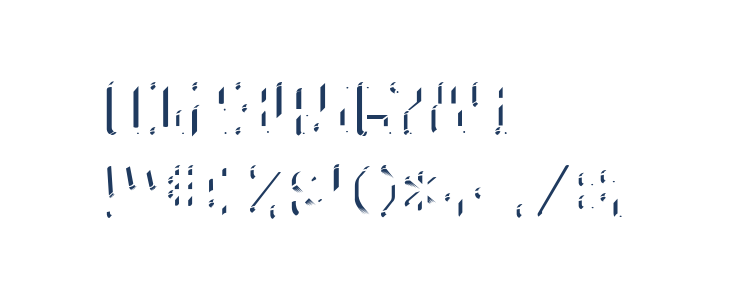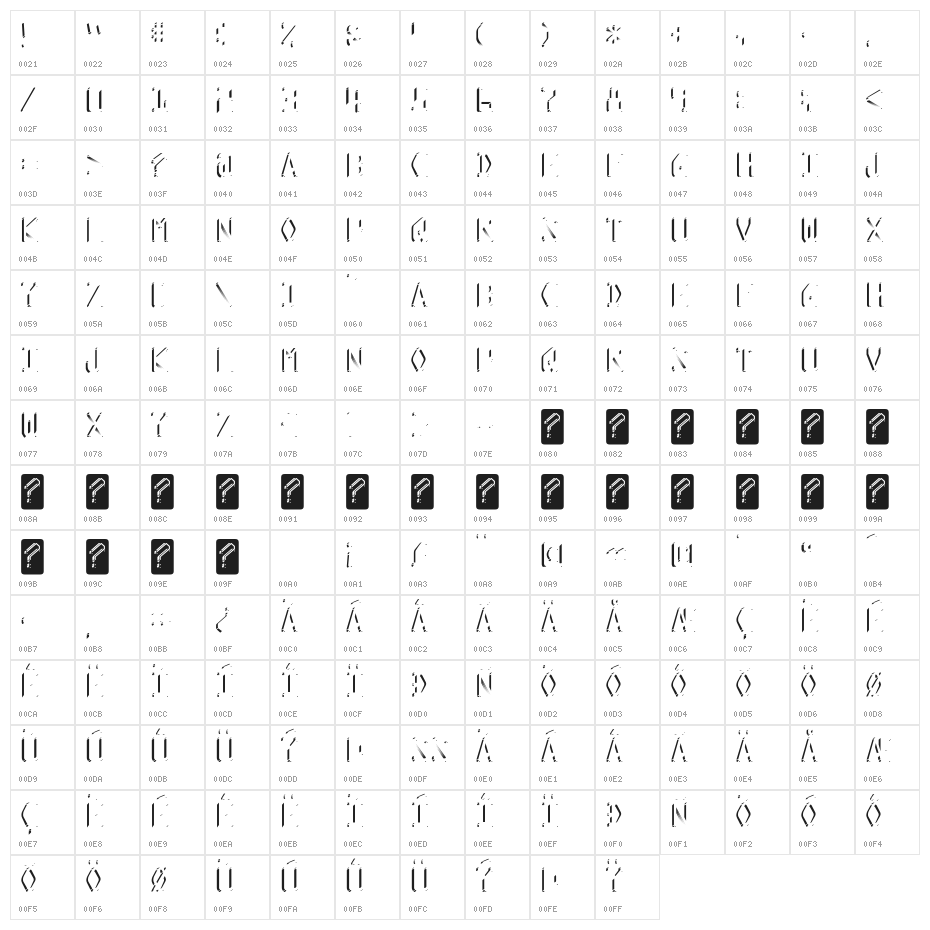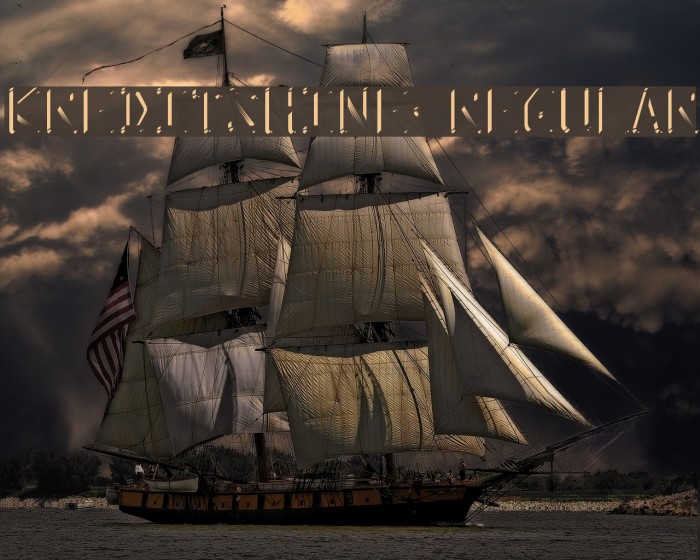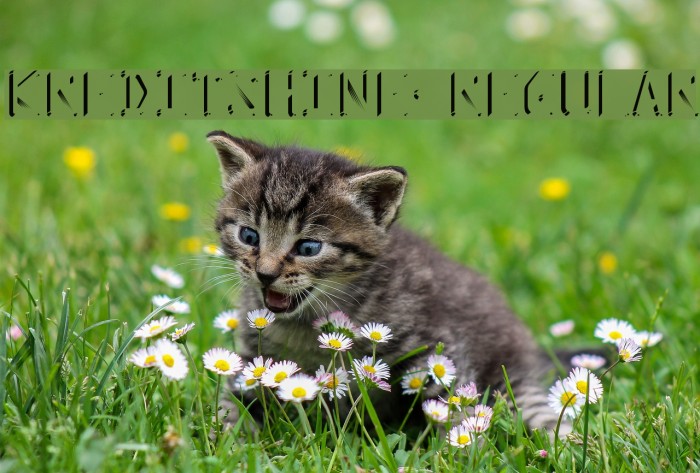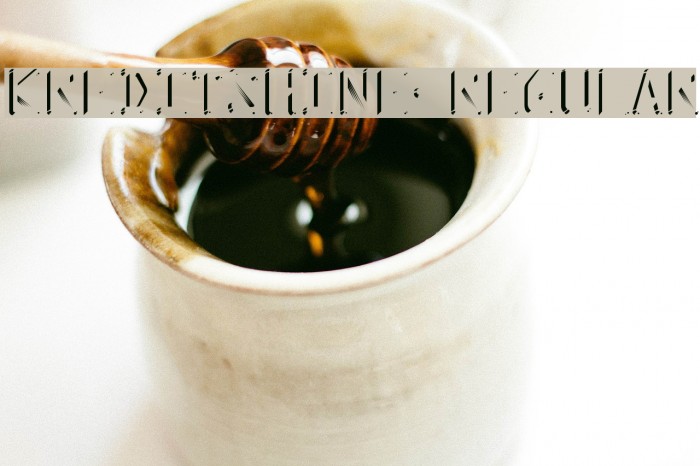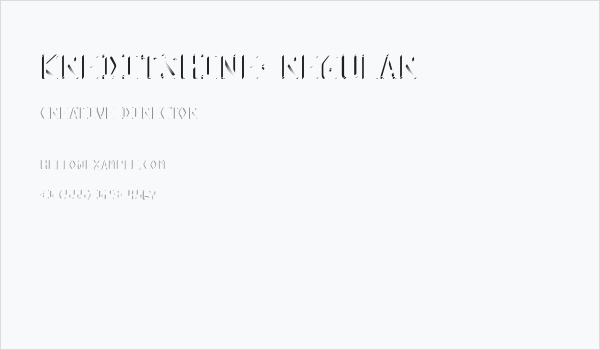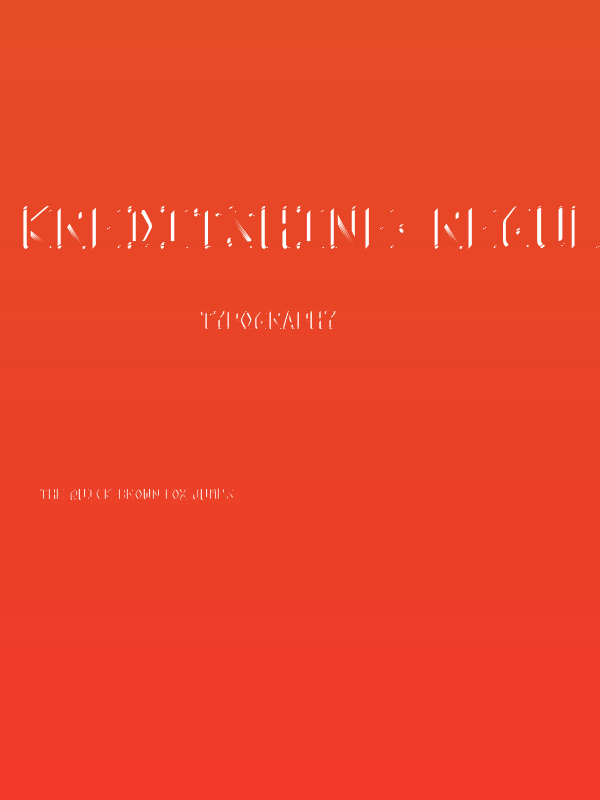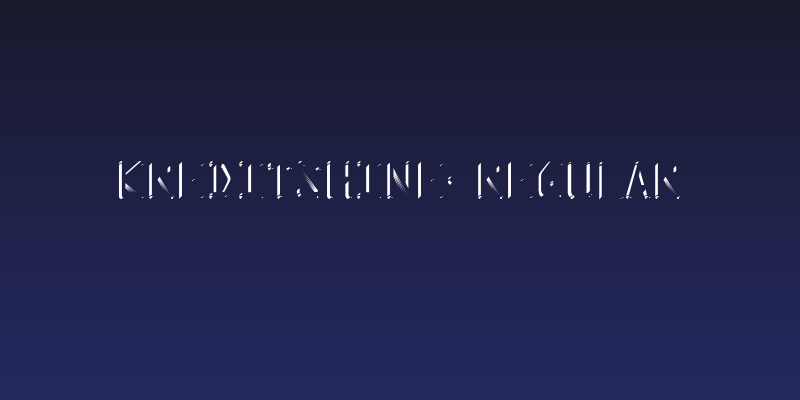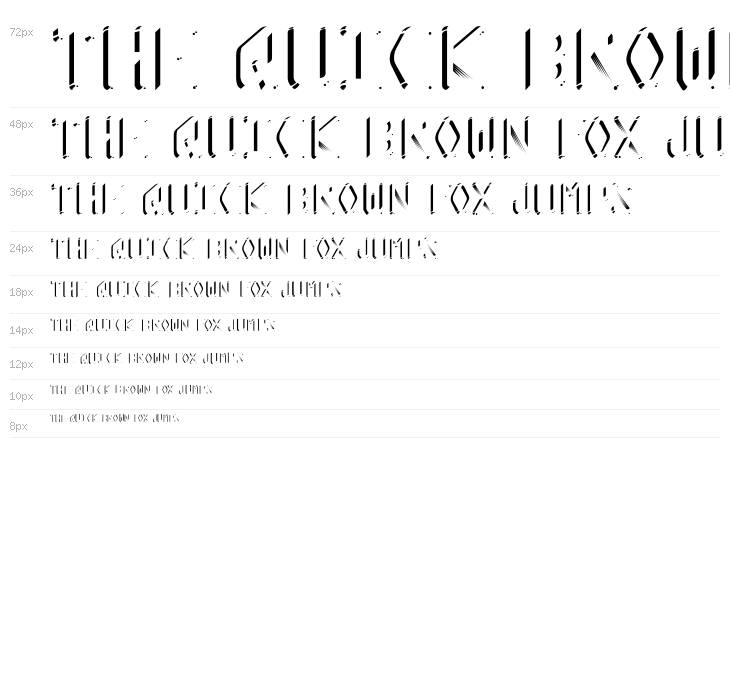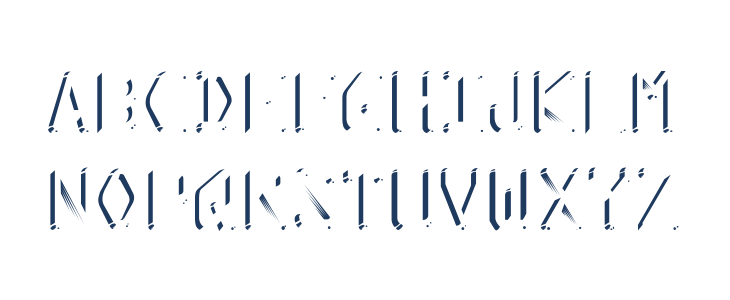
KreditShine-Regular Font
KreditShine-Regular Description
This font features a unique stencil-like design with a modern twist. Each character is composed of bold, angular lines with strategic cutouts, creating a sense of movement and dynamism. The letters are slightly condensed, giving a compact appearance while maintaining readability. The style is reminiscent of futuristic or industrial themes, with a high contrast between the thick and thin strokes. The overall aesthetic is both edgy and sophisticated, making it suitable for projects that require a bold statement.
Proposed ProjectsIdeal for branding, posters, and headlines that require a modern, edgy look.